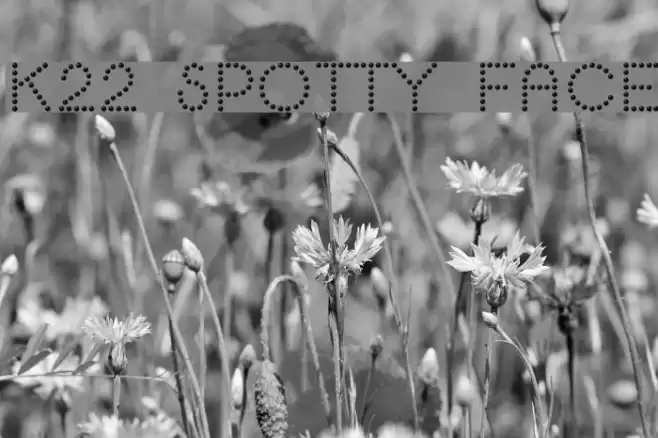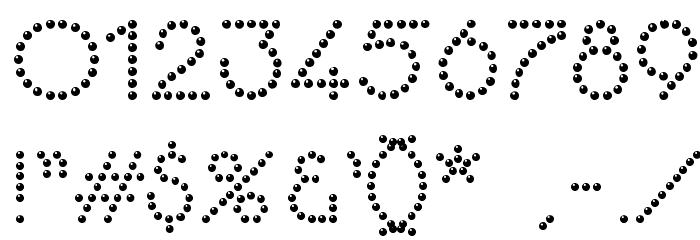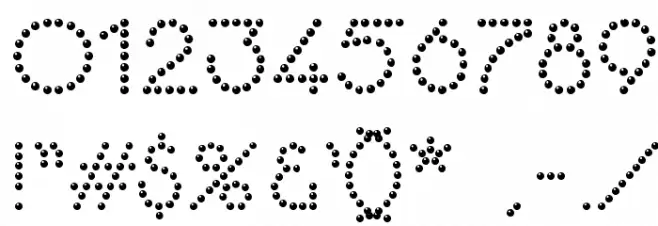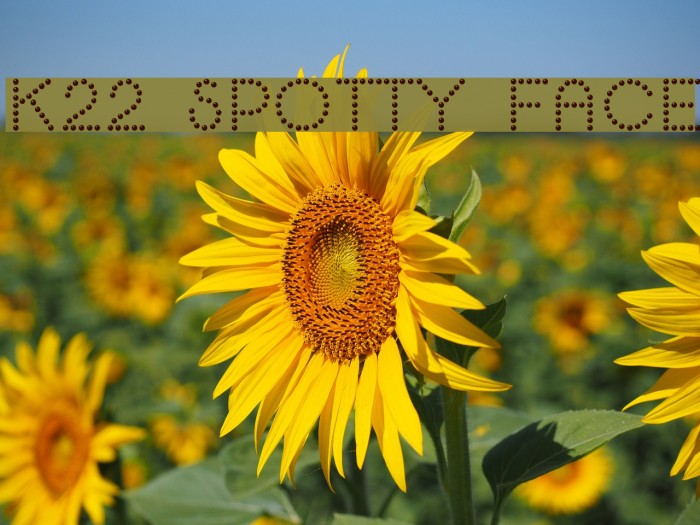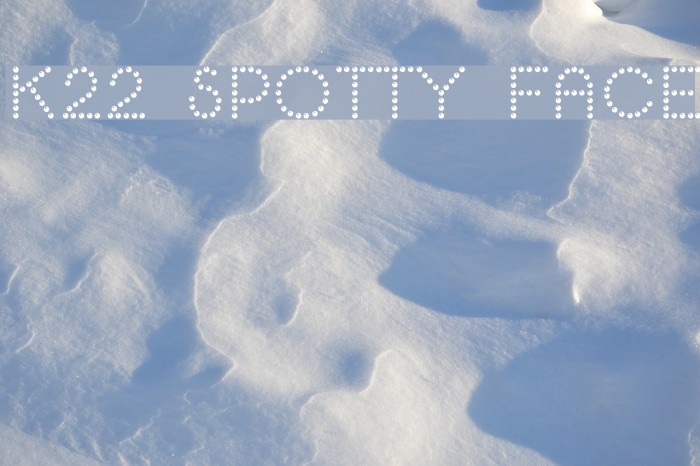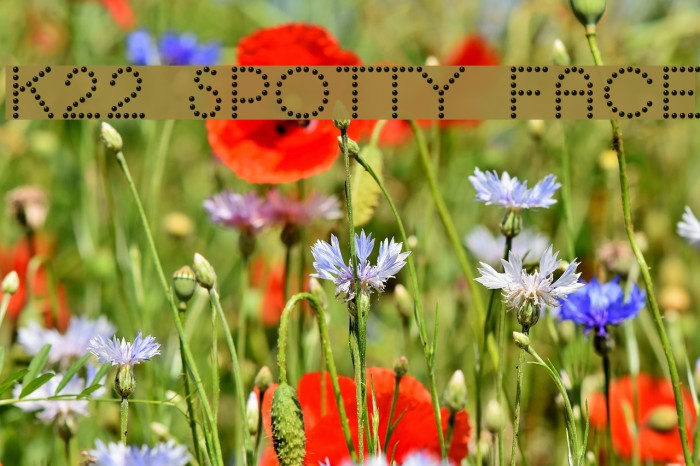
K22 Spotty Face Font
K22 Spotty Face Description
This font features a unique dotted design where each character is composed entirely of evenly spaced dots. The style is playful and modern, providing a distinct visual appeal that stands out. The uppercase and lowercase letters are clearly defined, maintaining readability despite the unconventional structure. Numbers and special characters follow the same dotted pattern, ensuring consistency across the entire character set. This font is ideal for creative projects that require a fun and eye-catching typeface.
A playful, dotted font perfect for creative and modern designs from Uncategorized fonts.
- Proposed Projects: Ideal for children's books, playful branding, party invitations, and modern art projects.